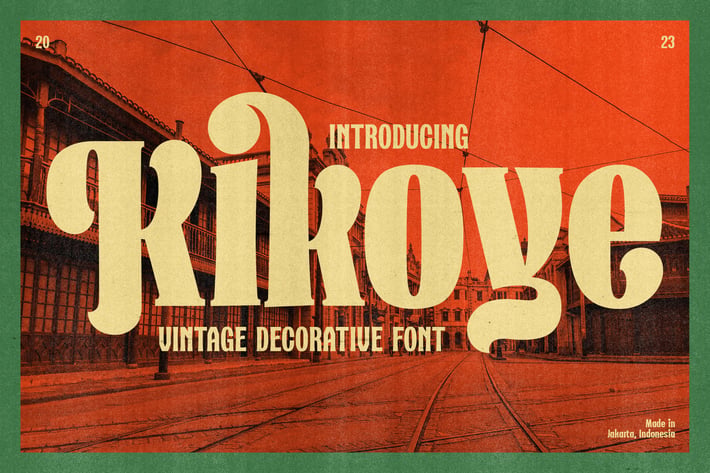
Kikoye - Vintage Ornamental Fonts
Kikoye is a medieval-inspired serif font. It formed with a bold body so it could be loud enough as a headline, display, or logo, mimicking the touch and vibes from the vintage and classic era.
Perfectly fit for a logo, branding, signage, decor, books, cover, badges and emblems, clothing, apparel, merchandise, movie title, serials, and many more.